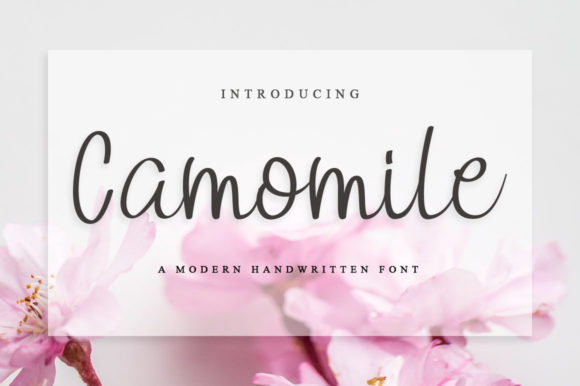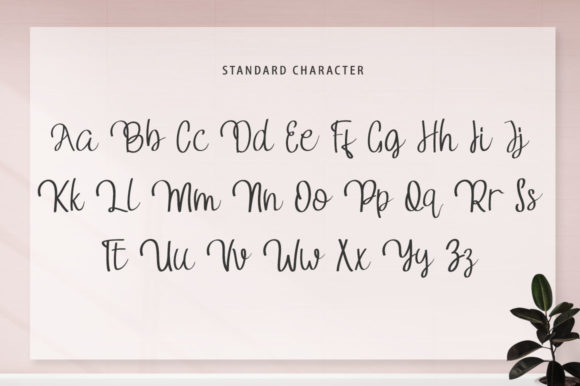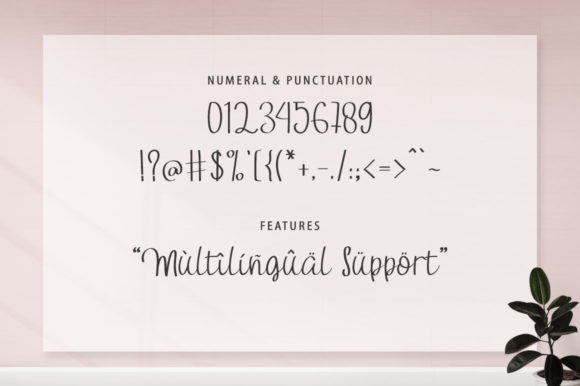
About Camomile Font
The Camomile is a flowing handwritten font, described by an elegant touch, perfect for your favorite projects. Fall in love with its incredibly distinct and timeless style and use it to create spectacular designs!